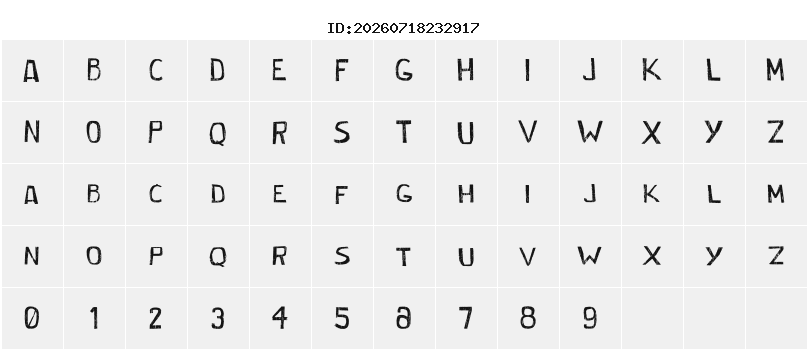
Cordelina Preview
About Cordelina.ttf
Cordelina.ttf is a modern, elegant sans-serif font designed for ultimate readability and visual harmony. Perfect for branding, headlines, web design, and print materials.